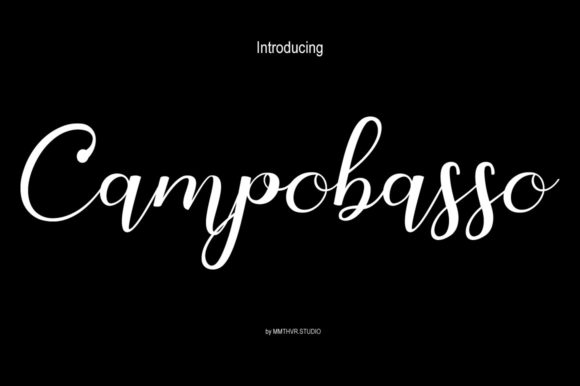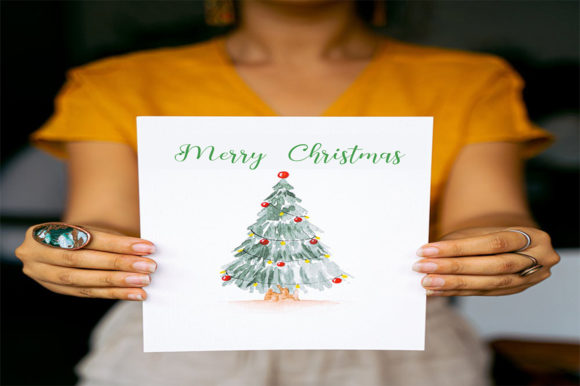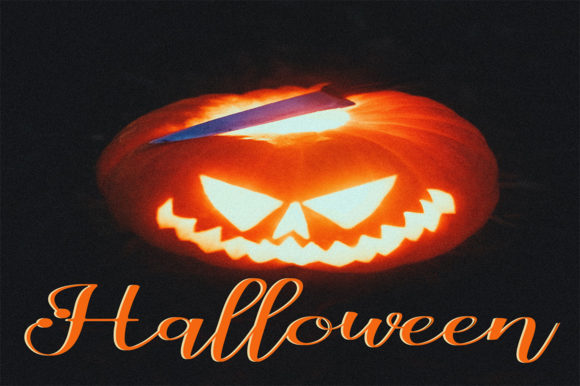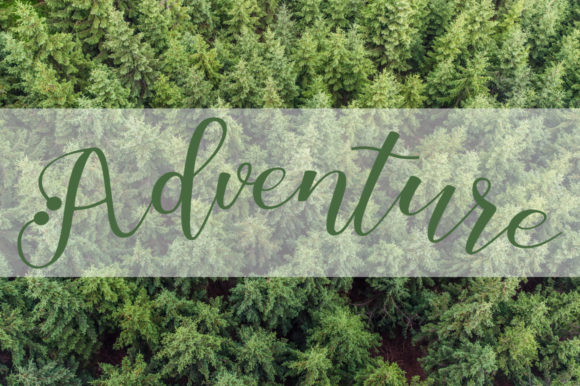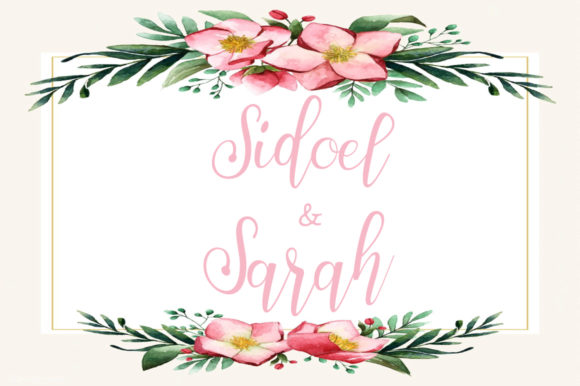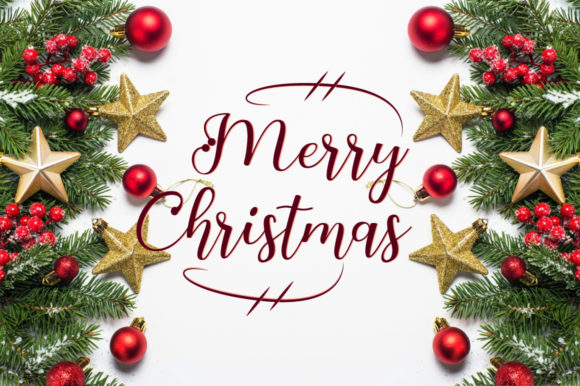
Introduction to Campobasso Font Font
Fonts play a crucial role in design, and the Campobasso Font font is a typeface that brings both character and versatility to any project. Whether you’re working on a branding project, a website, or a print design, the Campobasso Font font offers a unique style that can elevate your work.
Campobasso is a well-designed font made for packaging products, invitation cards, flyers and event posters that require high-quality items.
It has a classy, elegant and modern look that can be used for logos, branding, invitations, stationery, wedding designs, social media posts, and much more .
Key Features of Campobasso Font Font
Why Choose Campobasso Font Font?
The Campobasso Font font is more than just a typeface – it’s a design tool that helps you communicate your message with style and clarity. Its unique character set and versatile design make it suitable for a wide range of applications, from elegant invitations to bold headlines.
With its carefully crafted letterforms and balanced proportions, the Campobasso Font font ensures readability and visual appeal across all mediums.
What makes Campobasso Font font special?
The Campobasso Font font stands out with its unique design, exceptional readability, and versatility across various design applications.